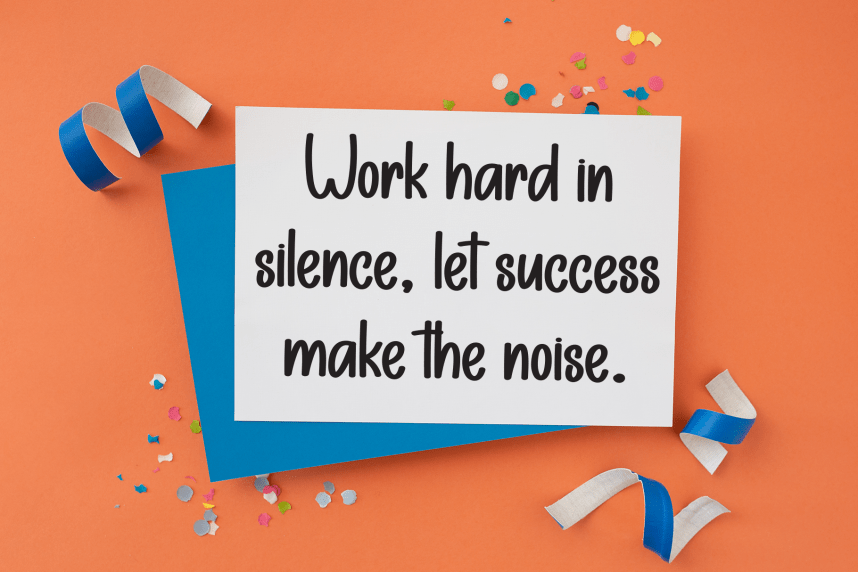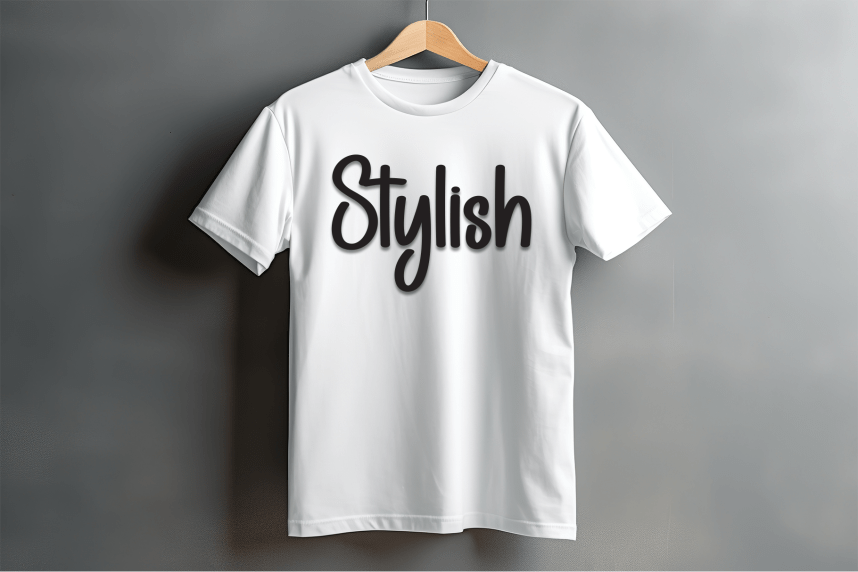
Spring Birthday – Simple Handwritten Font
Spring Birthday – Simple Handwritten Font is a sweet and friendly handwritten display font. Cute and fun, this font is ideal for writing wedding invitations, cards, or any other design that might need a playful touch!